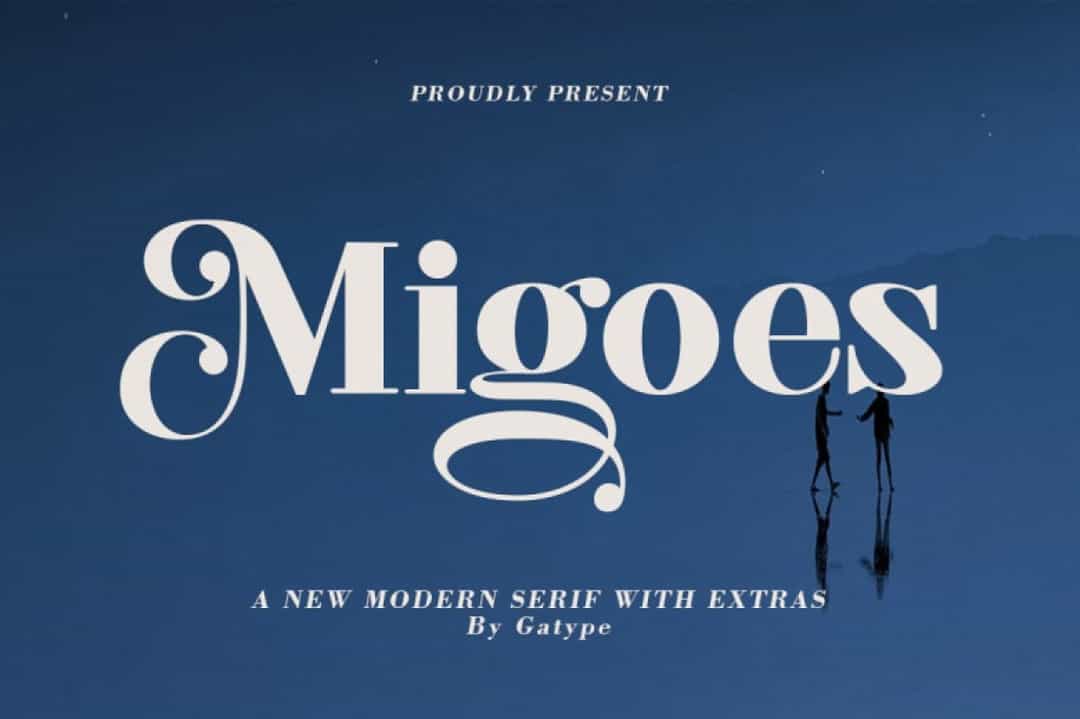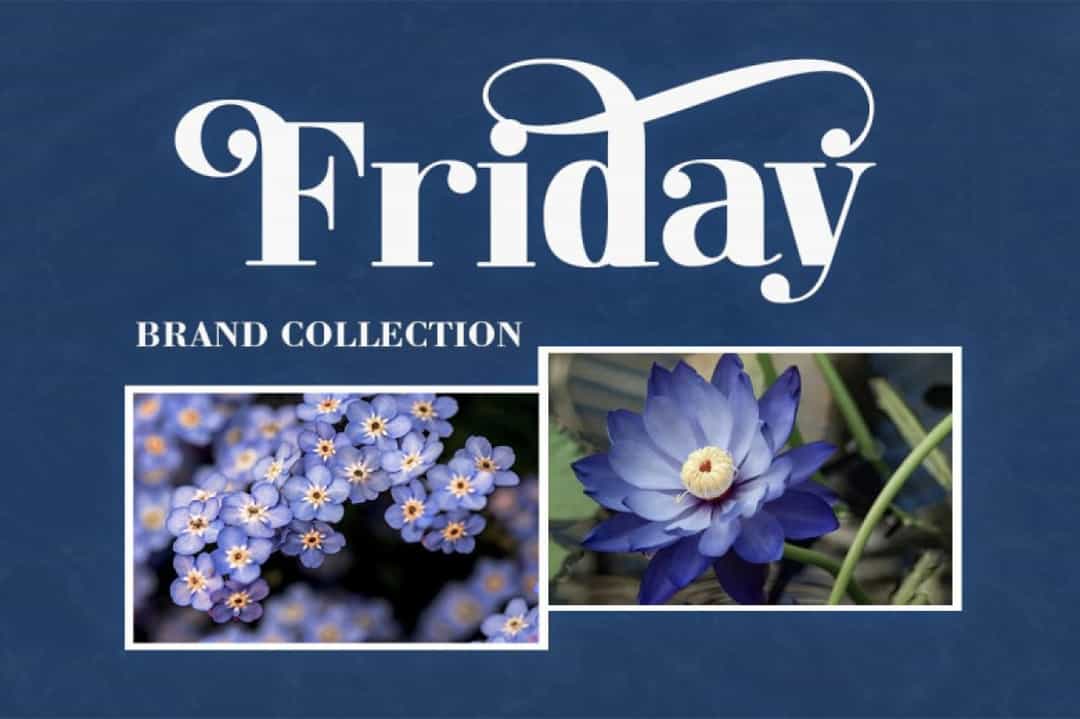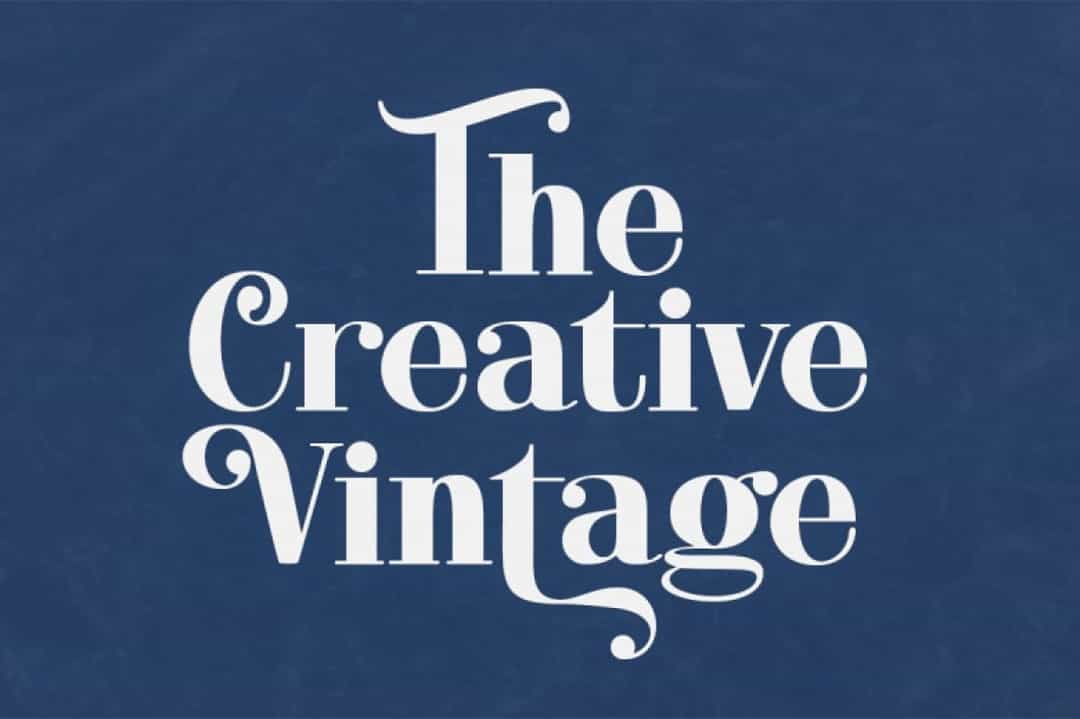
Migoes is a vintage modern serif typeface with an eye-catching, stylish and modern aesthetic. Featuring OpenType technology, this font offers you access to an expansive selection of alternatives in bindings and fonts for bindings as well as luxurious yet simple designs for fonts of different sizes and bindings.